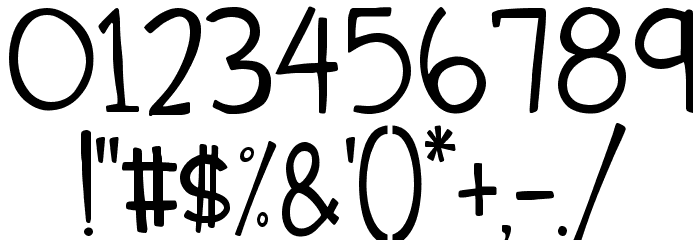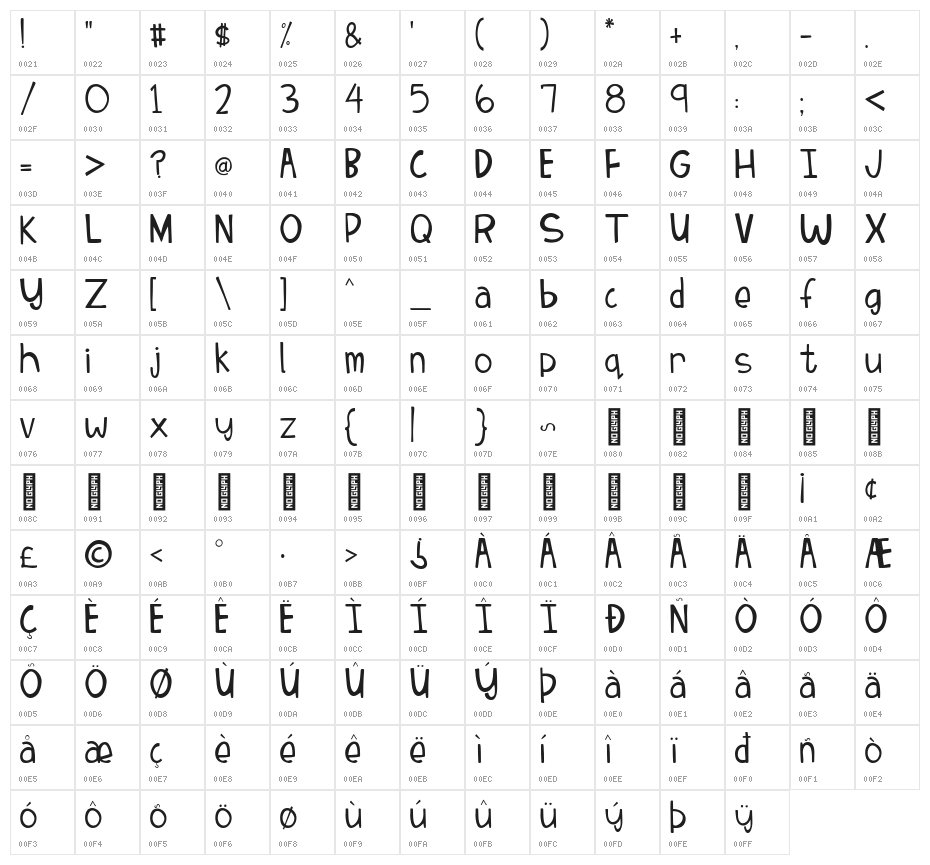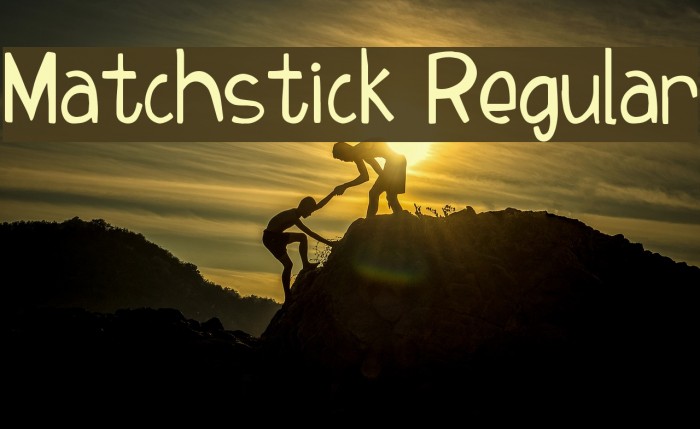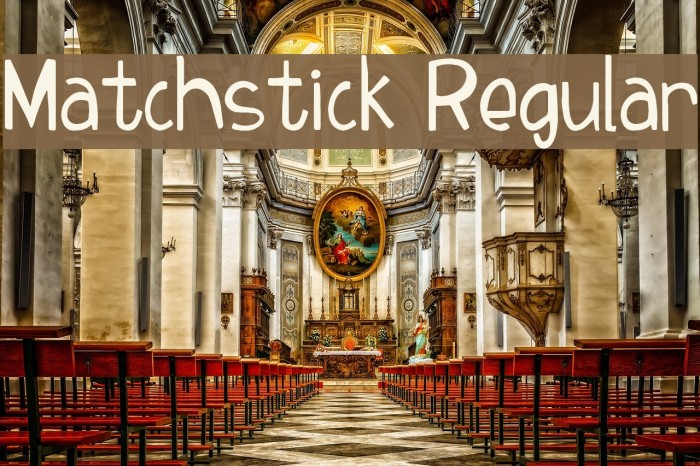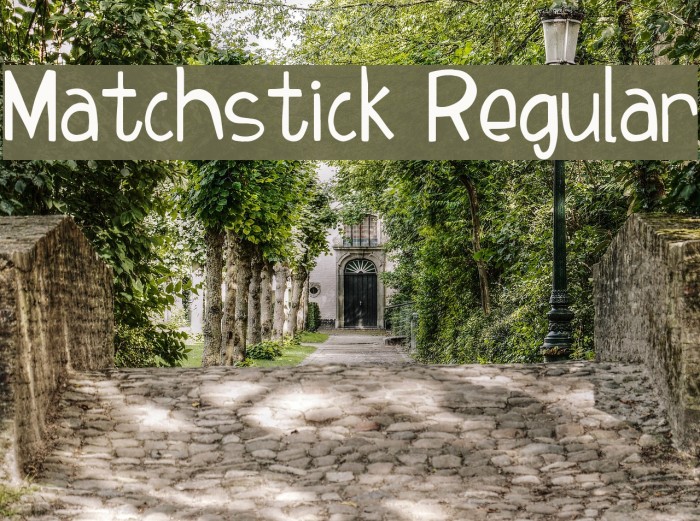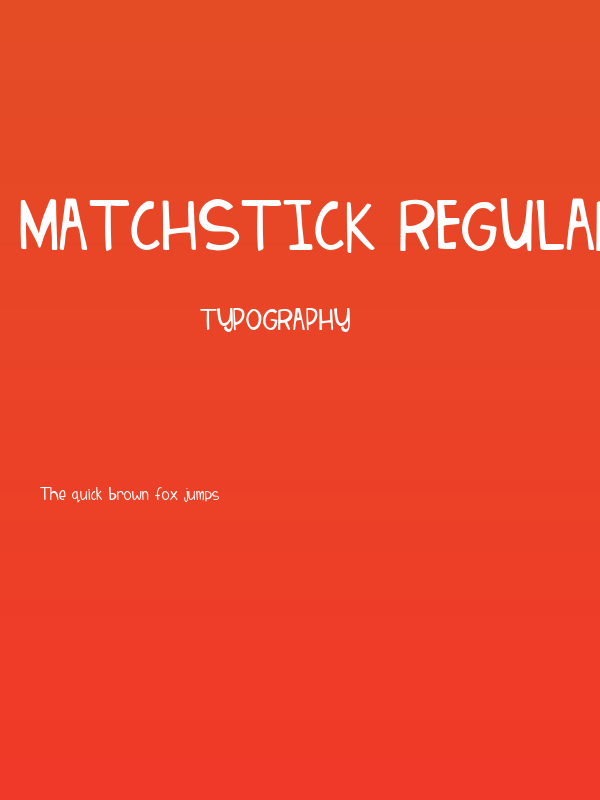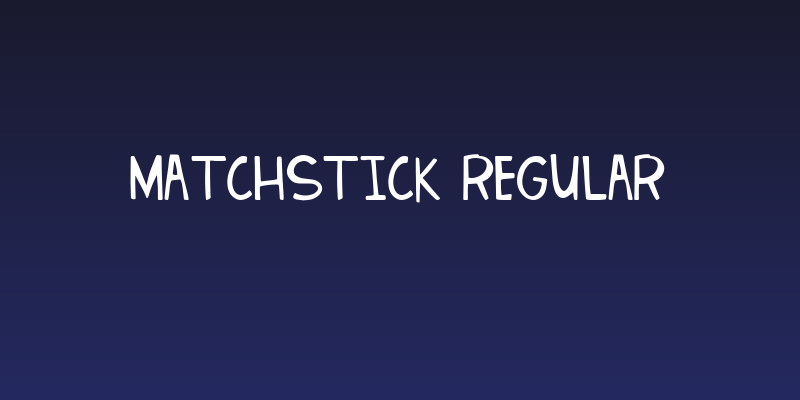
Matchstick Regular Font
Matchstick Regular Description
This font features a playful and informal style, characterized by its hand-drawn appearance. The letters have a slightly irregular shape, giving them a whimsical and casual feel. The strokes are consistent in thickness, providing a uniform look across all characters. The uppercase and lowercase letters maintain a cohesive design, with rounded edges and a friendly demeanor. The numerals and special characters follow the same playful aesthetic, making this font suitable for creative and informal projects.
| Proposed Projects | Ideal for children's books, greeting cards, playful branding, and casual invitations. |